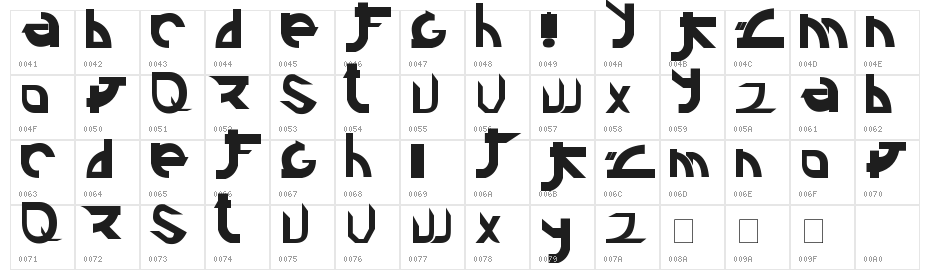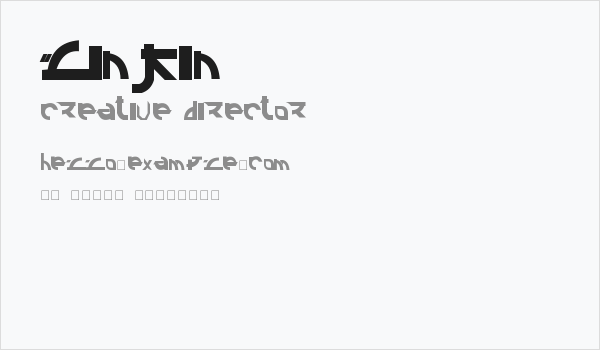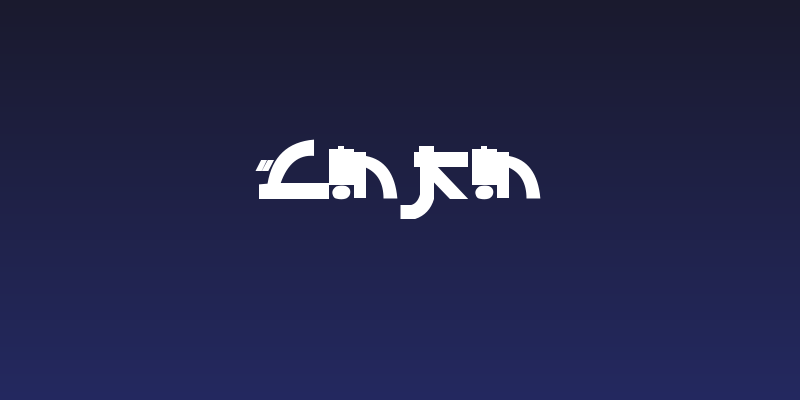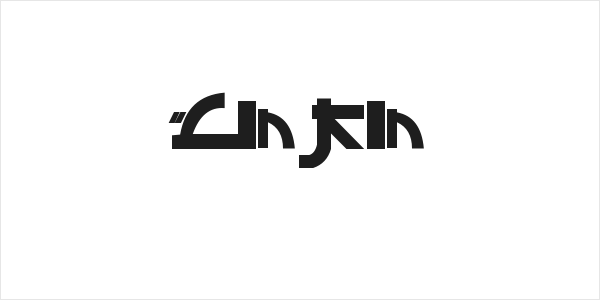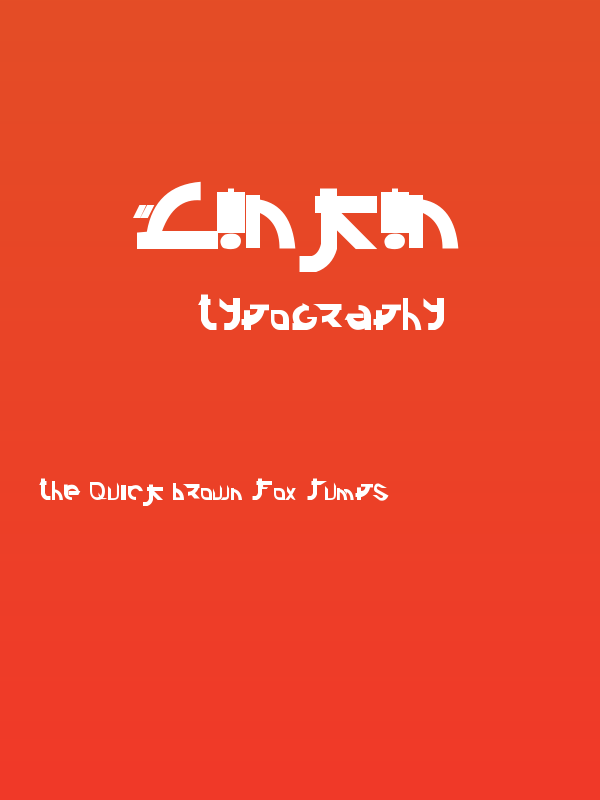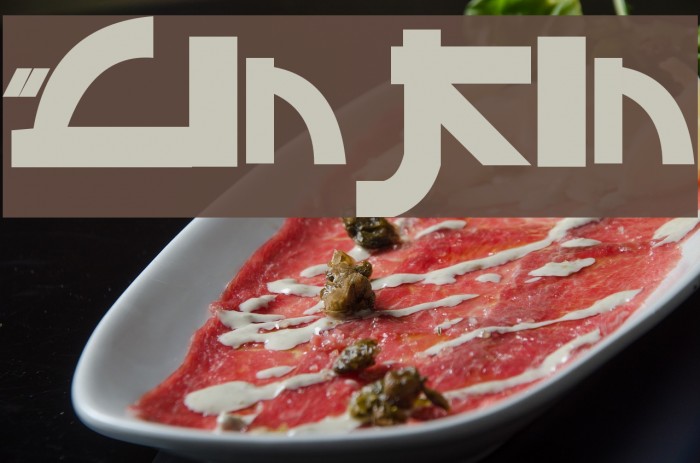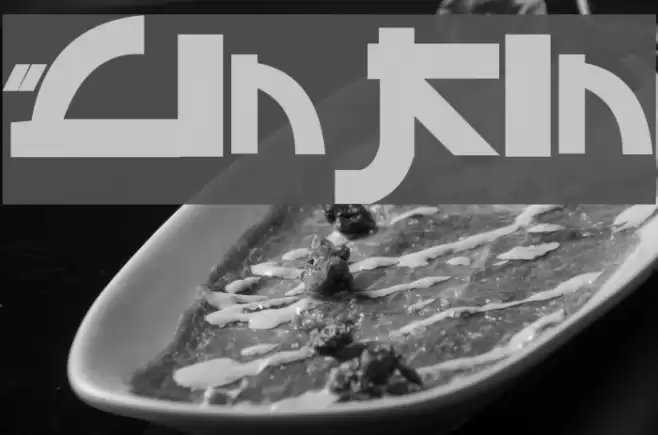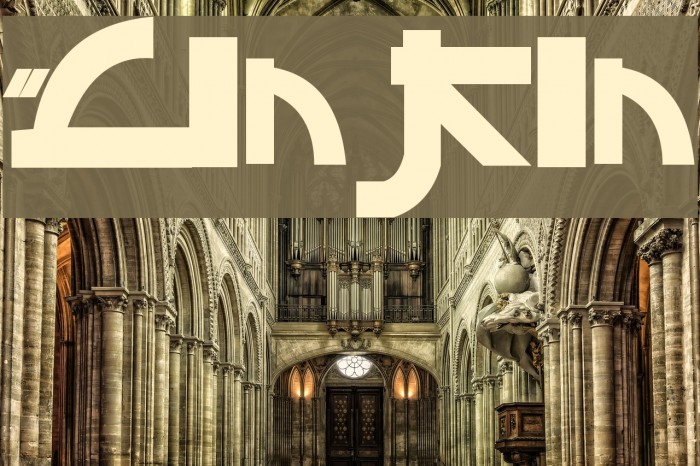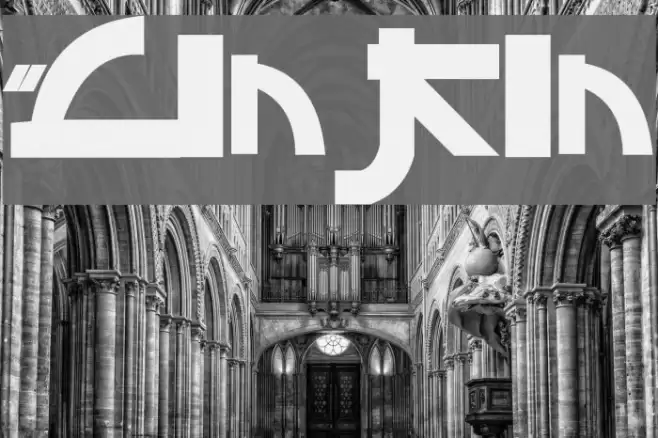
Linkin Font
Linkin Description
This font features a bold, angular design with a futuristic and geometric aesthetic. The characters are constructed with sharp edges and unique shapes, giving it a distinct and modern look. The uppercase and lowercase letters share similar design elements, maintaining consistency throughout the typeface. The numbers and special characters also follow the same stylistic approach, ensuring a cohesive appearance. The font's boldness and angularity make it stand out, suitable for projects that require a strong visual impact.
| Proposed Projects | Ideal for sci-fi themed projects, video game titles, tech branding, and modern posters. |